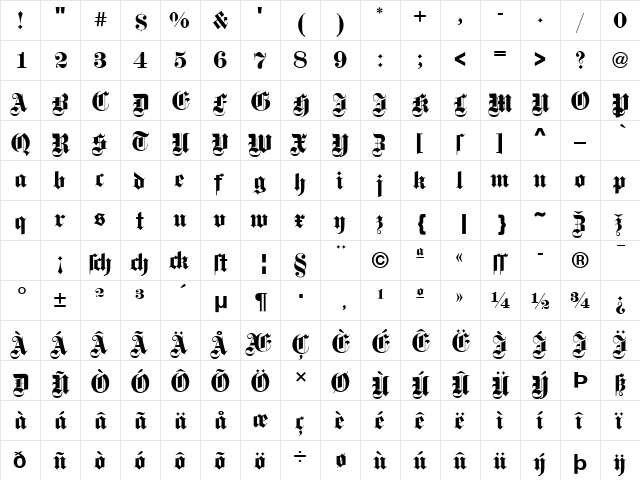
Steelplate Textura Regular
Design Context for Steelplate Textura Typeface
Steelplate Textura draws on the rich tradition of blackletter calligraphy, with dense, angular strokes that evoke medieval manuscripts and old-world craftsmanship.
Well-suited to band logos, craft beer branding, tattoo lettering, and heritage-themed identities.
Font Pairing: Pair with a clean neutral sans-serif for body copy to let Steelplate Textura's character lead without overwhelming the composition.
Pro Tip: Use Steelplate Textura sparingly at large sizes. Even a single word set in blackletter can define the visual register of an entire design.